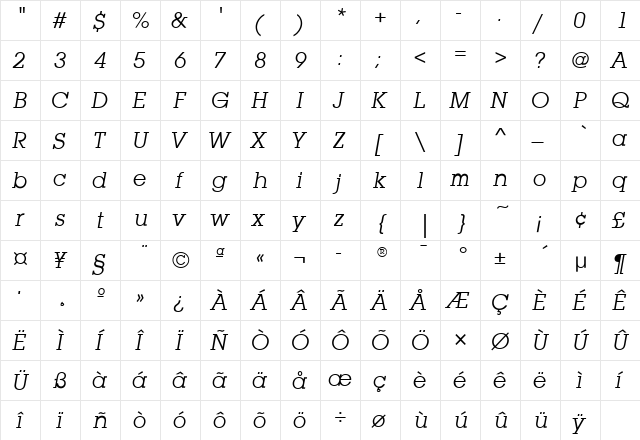
LubalinGraphITC Italic
Design Context for LubalinGraphITC Typeface
LubalinGraphITC is a composed and adaptable typeface that performs quietly and consistently across a wide range of design contexts. The dynamic lean of this cut emphasises speed and emphasis in any layout.
Pro Tip: Use LubalinGraphITC for emphasis, pull quotes, and subheadings where its slanted energy can add rhythm to the layout.